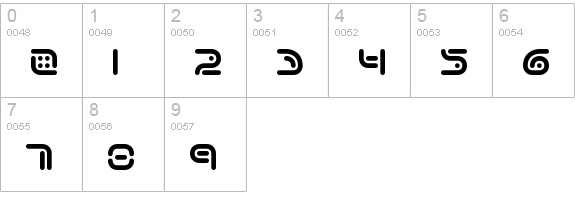
Sequence BRK Font Details
Sequence BRK is a modern and stylish font that will add a touch of sophistication to any design project. With its clean lines and geometric shapes, this font is perfect for creating eye-catching logos, headlines, and branding materials. The versatility of Sequence BRK allows it to be used in a variety of styles, from sleek and minimalist to bold and edgy. What sets Sequence BRK apart is not only its stunning aesthetics, but also the fact that it is free to download. That's right, you can get your hands on this amazing font without spending a dime. Whether you're a professional designer or a hobbyist, this font is a must-have in your design arsenal. Downloading Sequence BRK is incredibly easy, as it is available for free at FontsMarket.com. Simply visit the website, search for Sequence BRK, and click the download button. Within seconds, you'll have this incredible font ready to use in all your creative projects. So why wait? Enhance your designs with the elegance and uniqueness of Sequence BRK. Download it for free today and elevate your design game to new heights.